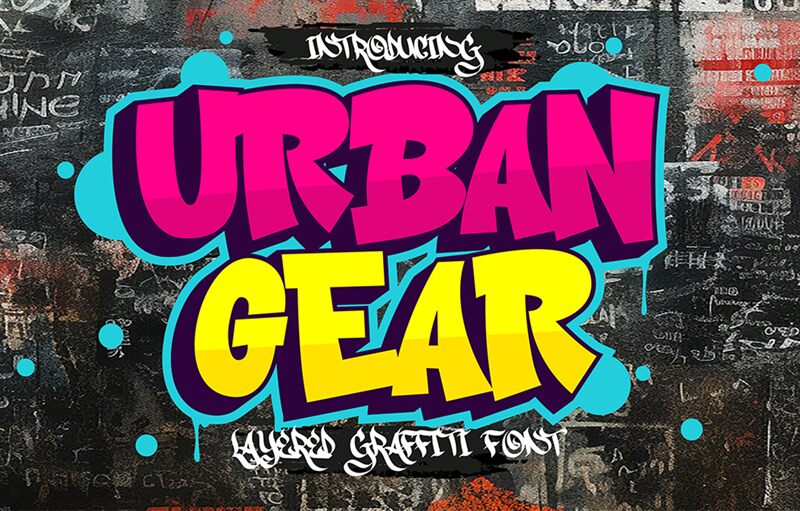
Urban Gear font family by Cikareotype Studio encompasses two vibrant graffiti-style font styles. Unleashing the urban aesthetic in its purest form, the typeface embodies dynamism and edginess with layered and slightly distorted characters. This youthful street-style design has a bold presence that makes it ideal for communicating boldly with your audience. With street art influences obvious in the curvy letterforms, the font still stays perfectly readable and will exceed your expectations.
Grab your reader’s attention using Urban Gear in logotype design, poster headings, social media graphics, art covers, and any surface print design project. Large size is what will do the magic and make the most of it, so don’t hesitate when it comes to wall murals and signage design.